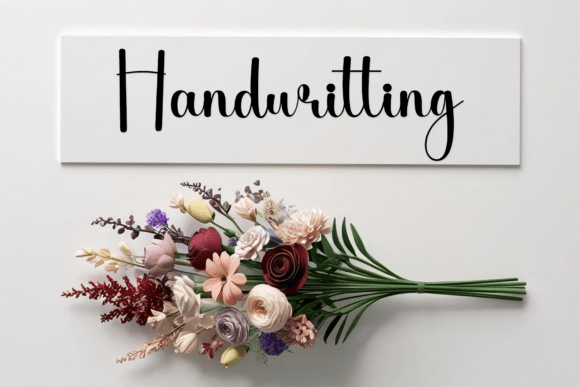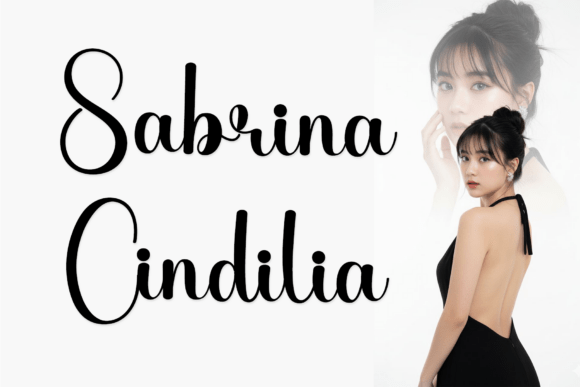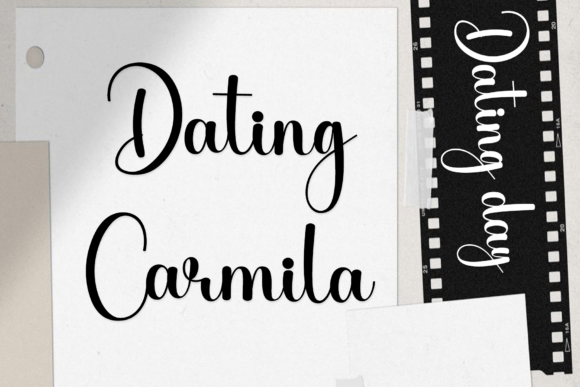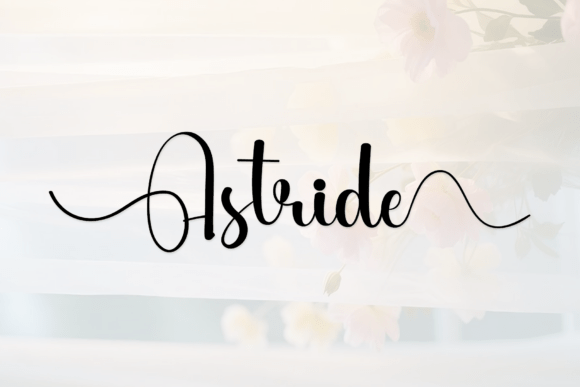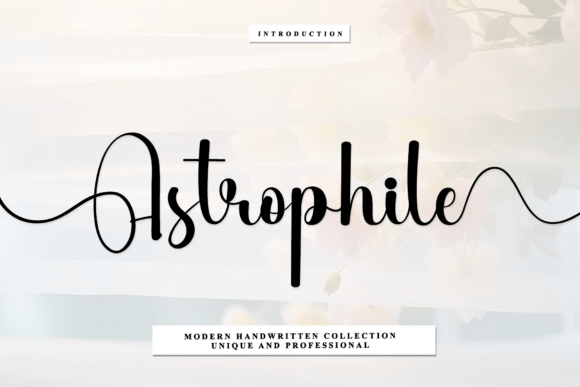
Astronauts of Typography: Discover the Charm of Astrophile Font
Are you a designer or crafter on the hunt for a font that adds a touch of personality to your creative projects? Look no further than Astrophile, a lovely and timeless handwritten font that’s out of this world! In this article, we’ll explore the unique features of Astrophile and why it’s the perfect choice for creating eye-catching logos, branding, and quotes.
Handwritten fonts have a way of adding a personal touch to any design project. They evoke a sense of warmth, approachability, and authenticity that’s hard to replicate with more formal font styles. Astrophile is a shining example of a handwritten font that’s both elegant and approachable. Its unique blend of classic and modern elements makes it an excellent choice for designers and crafters looking to add some personality to their work.
What Makes Astrophile Special?
So, what sets Astrophile apart from other handwritten fonts? For starters, every letter has a unique and beautiful touch that will make your design come alive! The font’s creator has poured their heart and soul into crafting a truly one-of-a-kind typography experience. From the flowing curves to the subtle imperfections, Astrophile is a font that’s full of character and charm.
Astrrophile is an incredibly versatile font that’s suitable for a wide range of design projects. Whether you’re creating a logo, branding materials, or inspirational quotes, Astrophile is an excellent choice. Its timeless quality ensures that your design will stand the test of time, while its unique personality will help you stand out from the crowd.
Why Designers and Crafters Love Astrophile
Designers and crafters are a creative bunch, and they need fonts that can keep up with their imagination. Astrophile is a font that’s designed to inspire creativity and bring ideas to life. Here are just a few reasons why designers and crafters love Astrophile:
• Unique and beautiful lettering: Every letter in Astrophile has been carefully crafted to be unique and beautiful, making it perfect for designs that need a personal touch.
• Timeless quality: Astrophile has a classic, timeless quality that ensures your design will remain stylish for years to come.
• Versatile: Astrophile is suitable for a wide range of design projects, from logos and branding to quotes and more.
• Easily readable: Despite its unique personality, Astrophile is still an easily readable font, making it perfect for designs that need to communicate a message.
Tips for Using Astrophile in Your Designs
Now that we’ve covered the benefits of Astrophile, let’s dive into some tips for using it in your designs:
• Experiment with different colors: Astrophile looks great in a variety of colors, so don’t be afraid to experiment and find the perfect hue for your design.
• Mix and match with other fonts: Astrophile pairs well with a range of other fonts, so feel free to get creative and try out different combinations.
• Use it for headlines and titles: Astrophile is perfect for headlines and titles, where its unique personality can really shine.
• Add some texture and flair: Consider adding some texture or flair to your design to really make it pop.
Font Name Astrophile Font
Author Sansana
In conclusion, Astrophile is a truly special font that’s perfect for designers and crafters looking to add a touch of personality to their creative projects. With its unique and beautiful lettering, timeless quality, and versatility, Astrophile is an excellent choice for logos, branding, quotes, and more. So why not give it a try and see the magic for yourself?